ALS Tailored Creatives
A fusion of classic heraldry and playful modernity – typographic crests that mix luxury and expressive design.
Checkpoint ALS, a leader in branding and labelling for the fashion industry, commissioned me to create a series of typographic graphics to showcase their manufacturing expertise to clients.
The designs explored two contrasting trends – Formal Luxury, inspired by the aesthetics of post-COVID fashion, and Informal Organic, which embraces fluid, expressive letterforms.
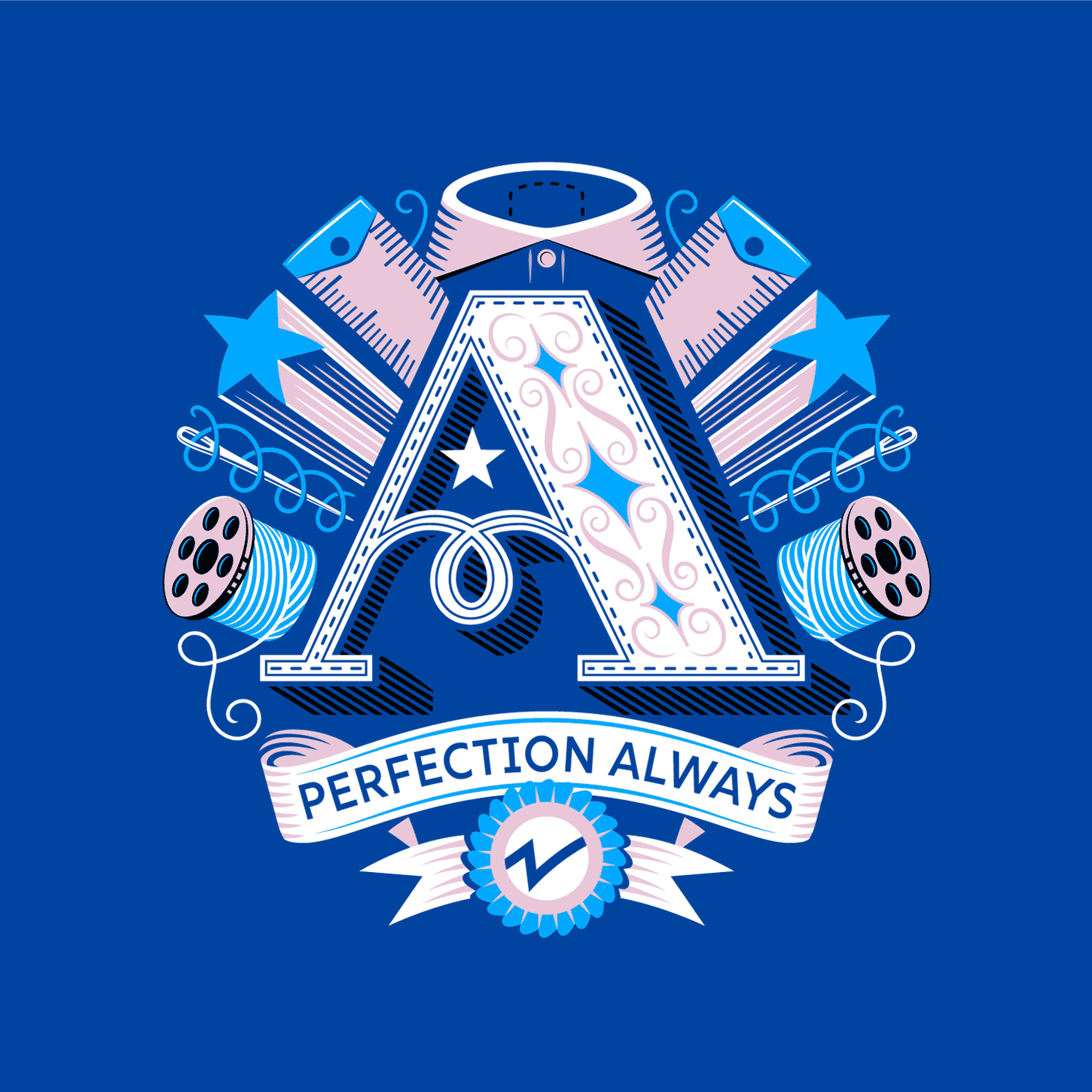
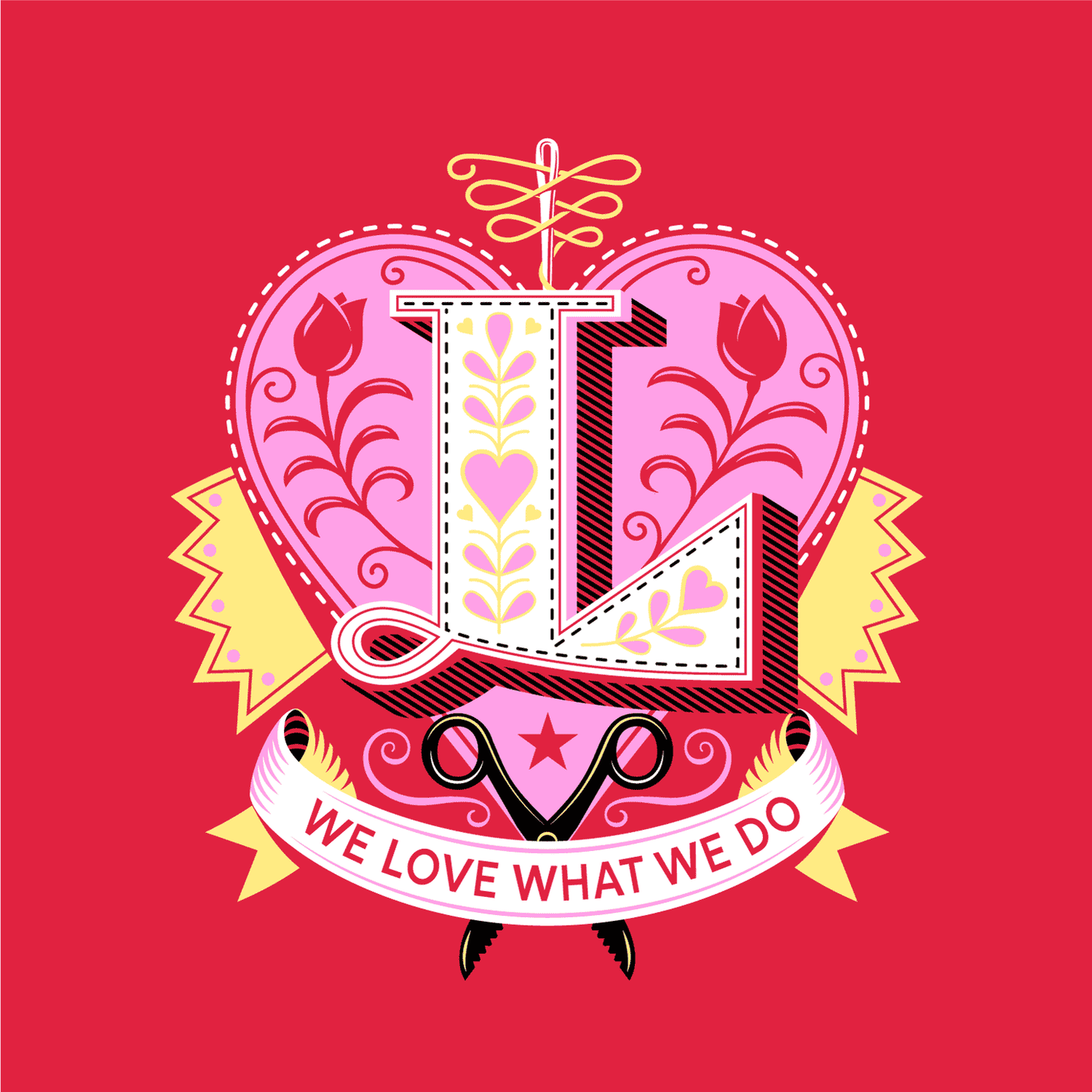
I developed three individual crests plus a main emblem, combining structured monograms with playful illustration.
Each crest highlights the company’s brand values and manufacturing strengths, balancing intricate detail with clarity to ensure versatility across both printed and stitched applications.
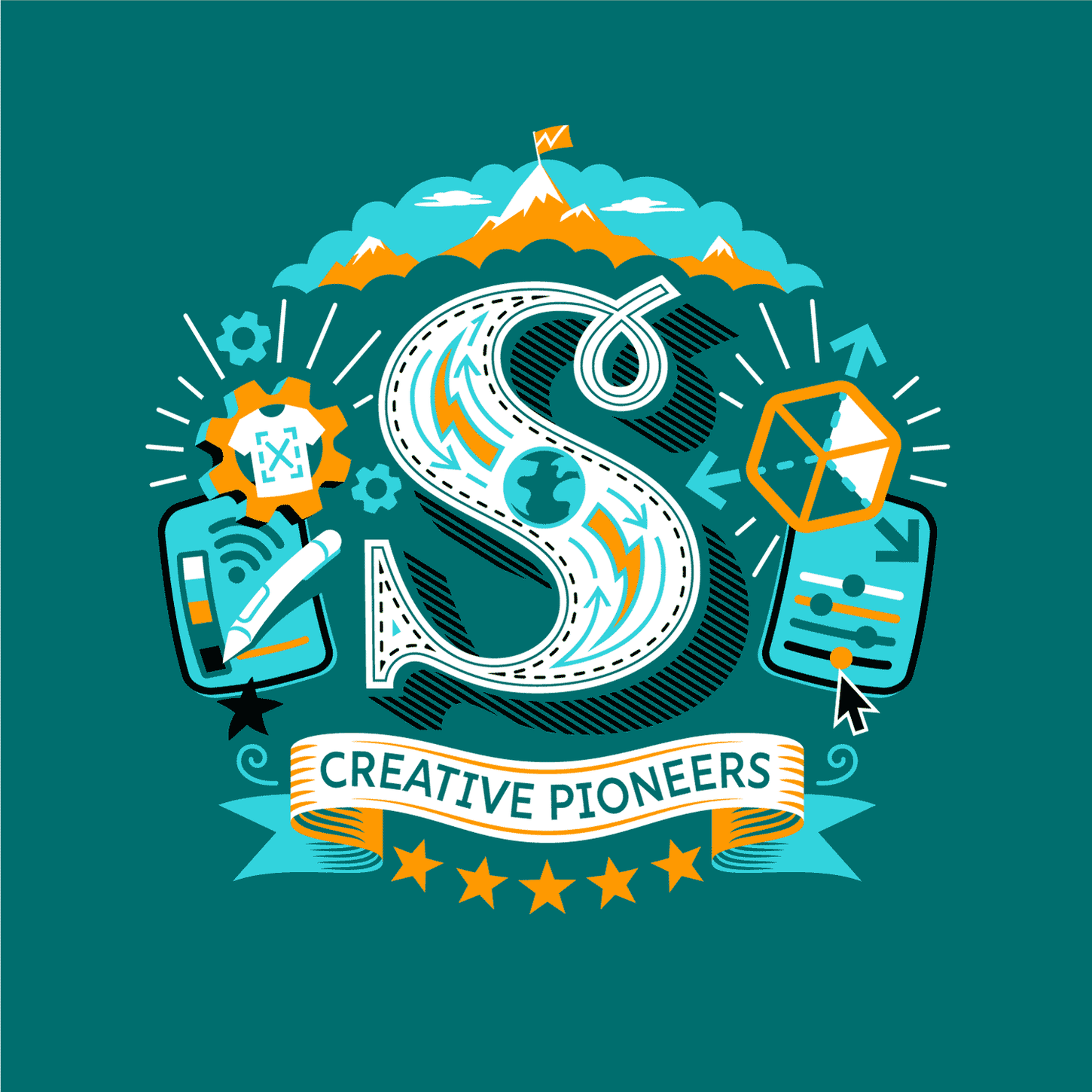
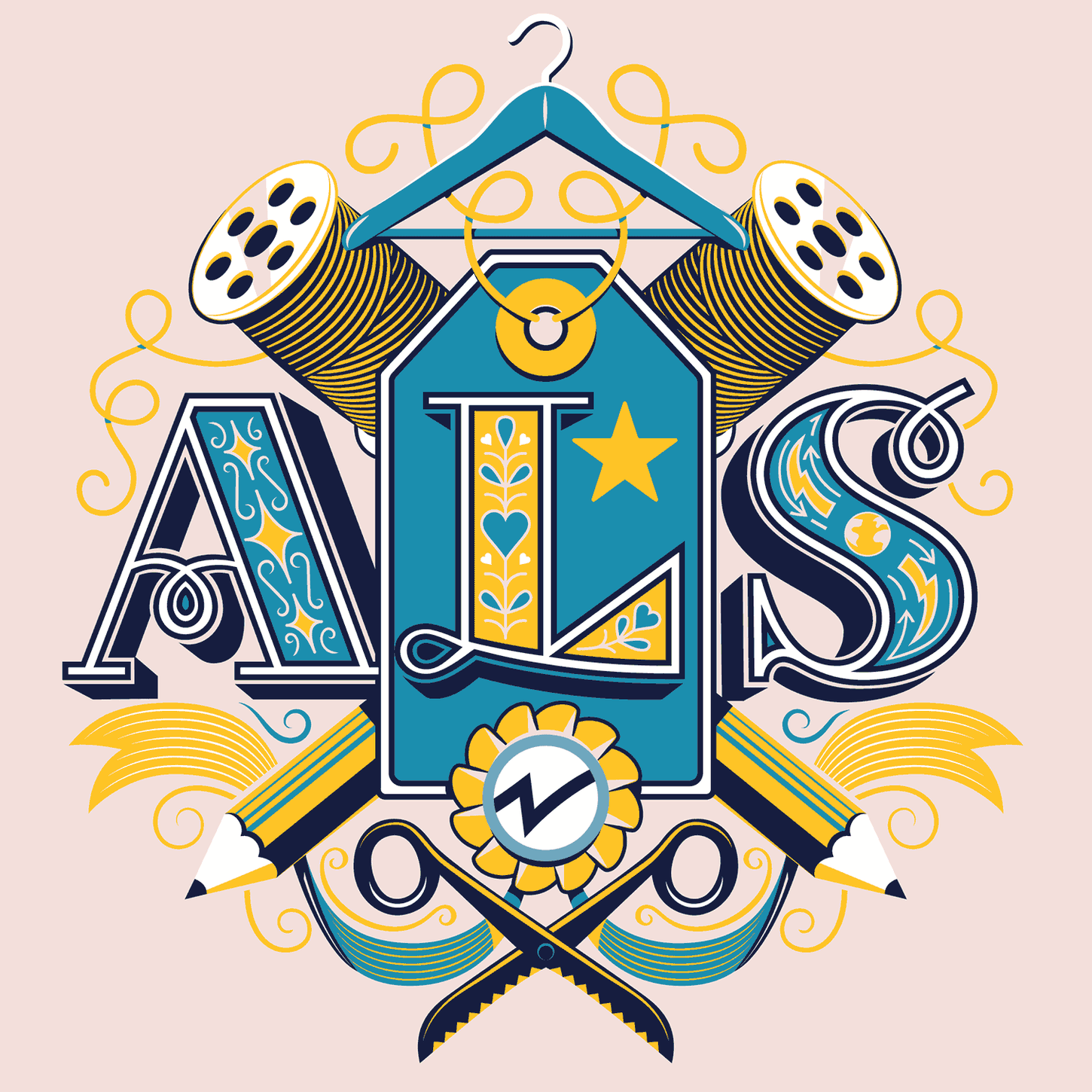
Each design is a vibrant, jewel-like monogram, telling a visual story about the company. The designs were reproduced by ALS production teams worldwide across a range of media, including embroidery, print, and foil stamping.